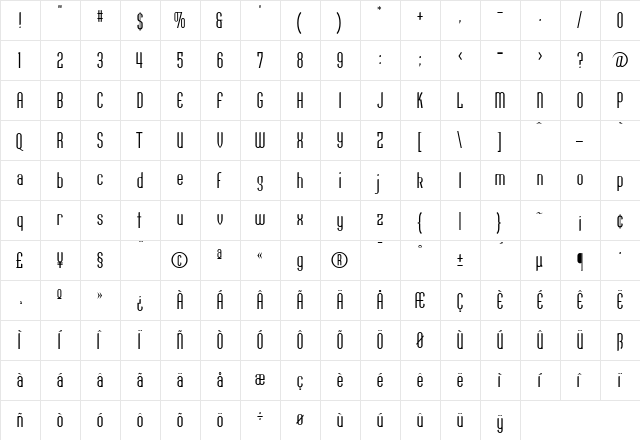
ConquesBookA Regular
Design Context for ConquesBookA Typeface
ConquesBookA takes a measured approach to typography — its balanced proportions and neutral character make it a reliable workhorse for both digital and print work.